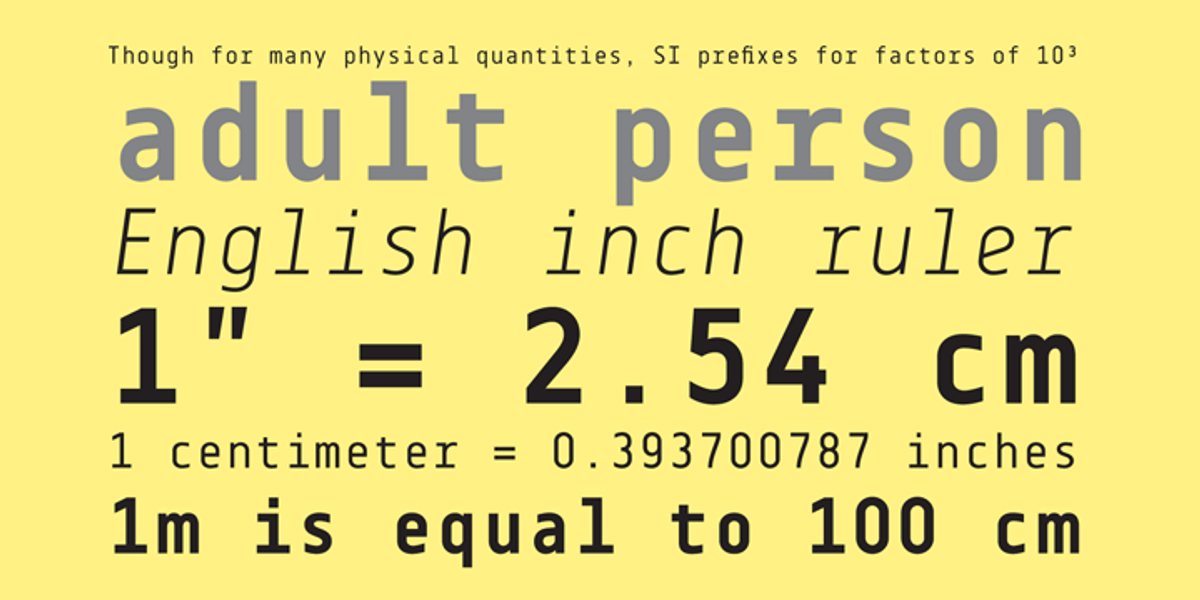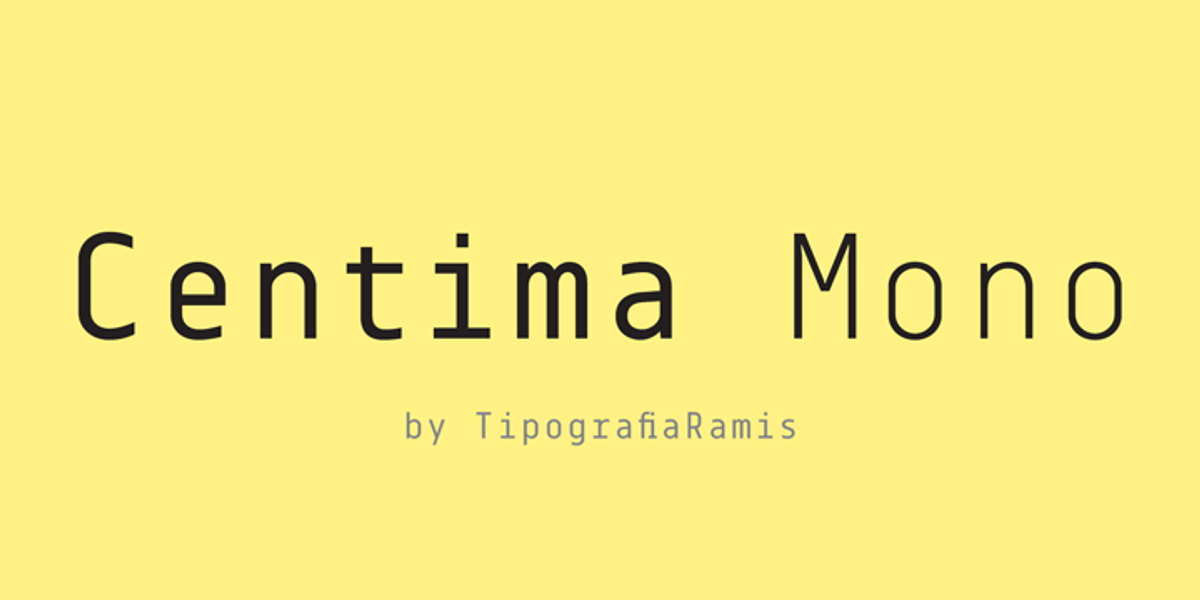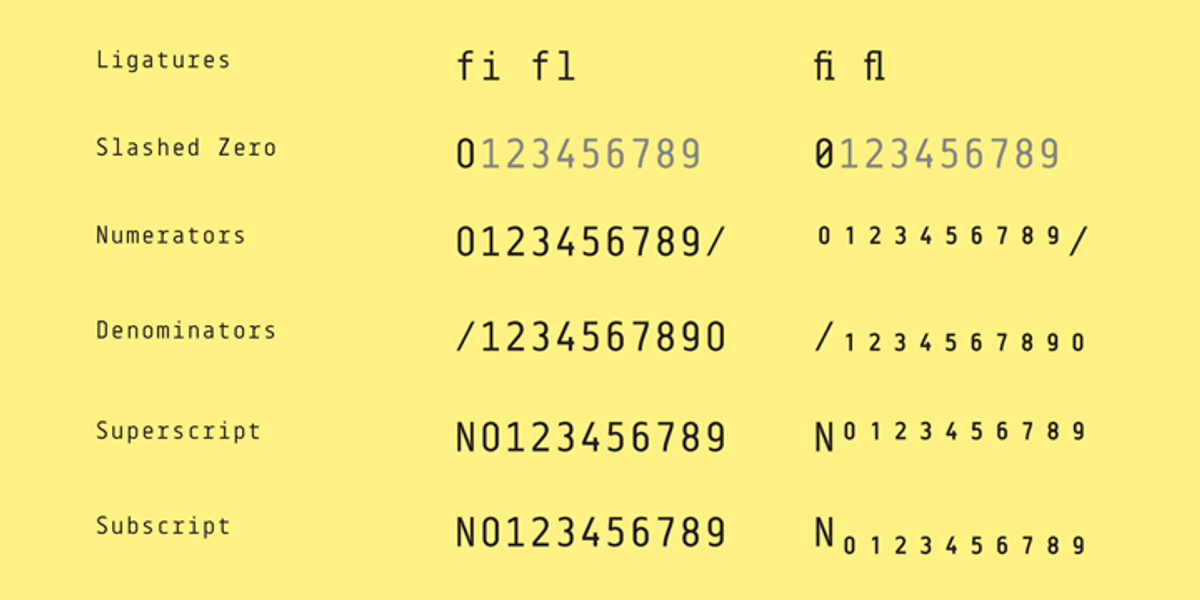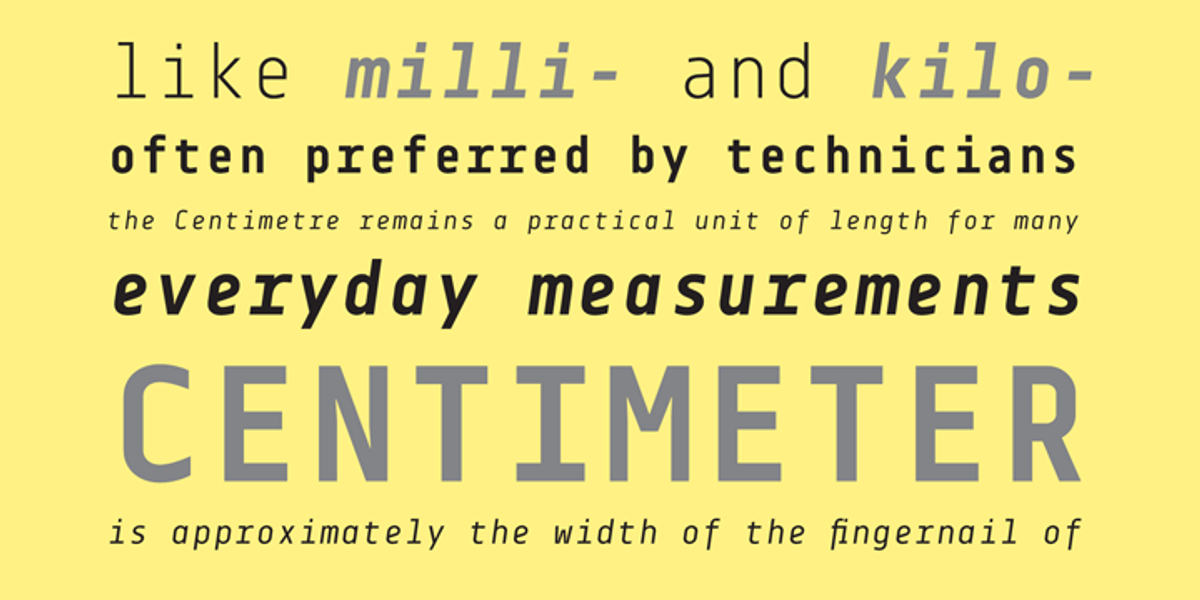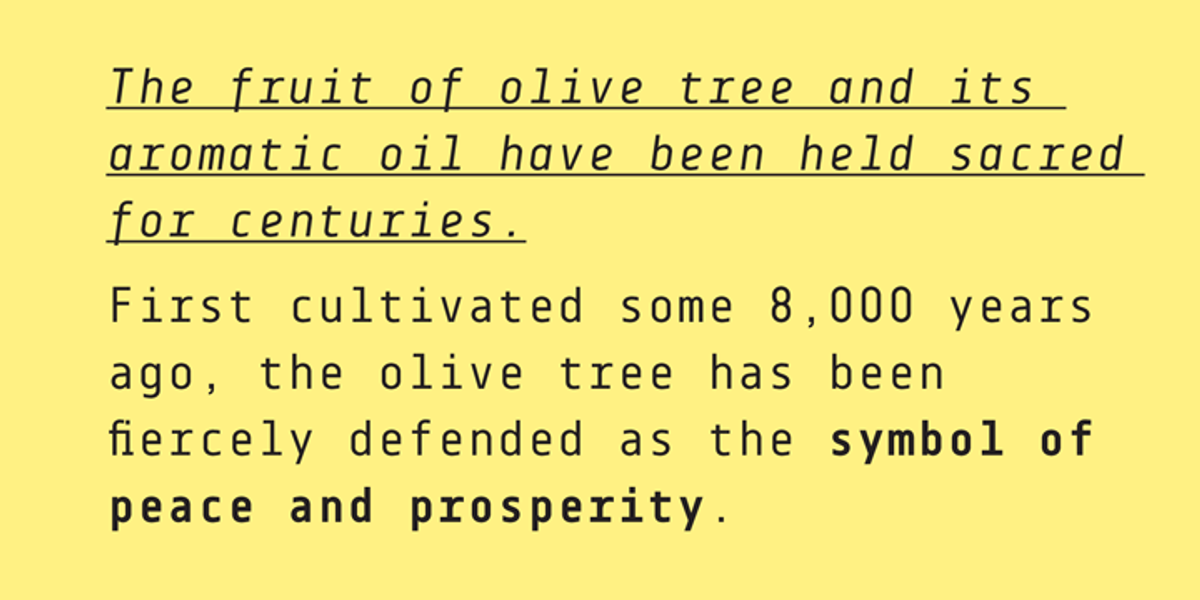
Centima Mono
Centima Mono is a condensed geometric sans serif font designed for versatility. It's well-suited for both display sizes and text use, making it suitable for editorial designs, branding projects, and even programming environments due to its monospaced nature.